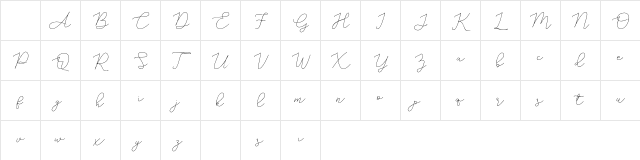
Adelya Free is a composed and adaptable typeface that performs quietly and consistently across a wide range of design contexts.
Pro Tip: Use Adelya Free in both headline and body roles to test its range before committing to a single application.
Who designed the Adelya Free Regular font?
This font was published by Craft Supply Co. Check the technical specs section for copyright and designer details.